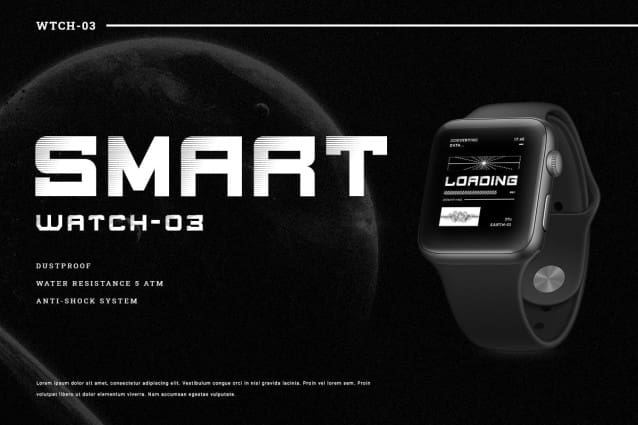
Rockel Display Font
Rockel Display Font is a bold and authentic display font. It is suitable for all your projects requiring a spatial touch. And the font is also suitable for branding projects, t-shirt printing and many more.